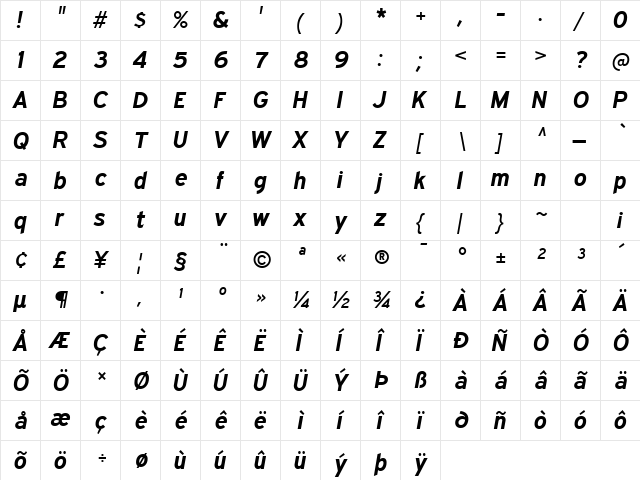
Expressway Bold Italic Font Preview
Expressway Bold Italic
Expressway Bold Italic Font Details
Design Context for Expressway Typeface
Expressway takes a measured approach to typography — its balanced proportions and neutral character make it a reliable workhorse for both digital and print work. The slanted form adds forward momentum and visual energy. The heavy weight commands attention and anchors typographic hierarchies.
Pro Tip: Use Expressway for emphasis, pull quotes, and subheadings where its slanted energy can add rhythm to the layout.